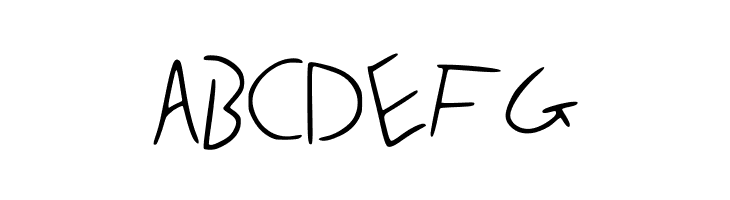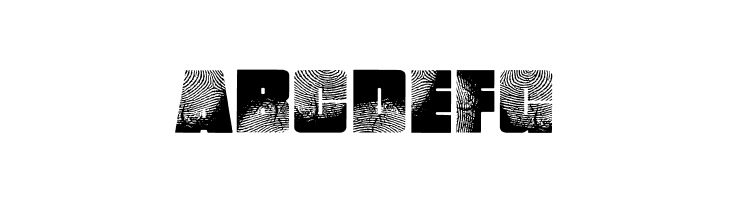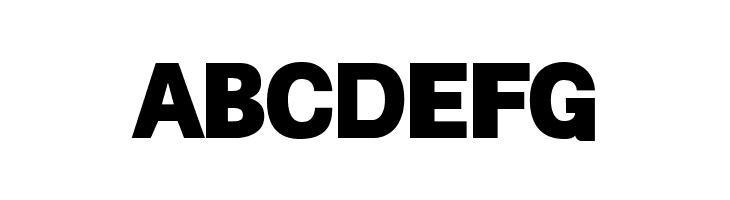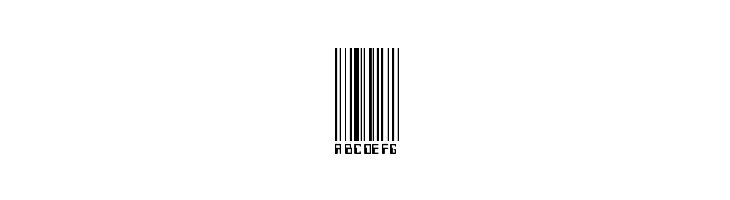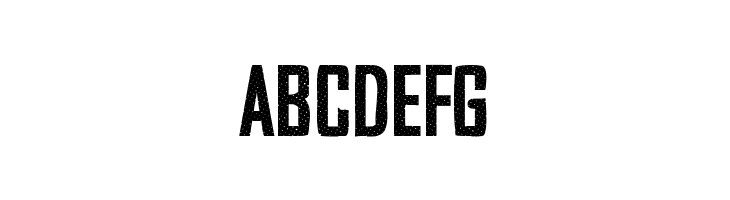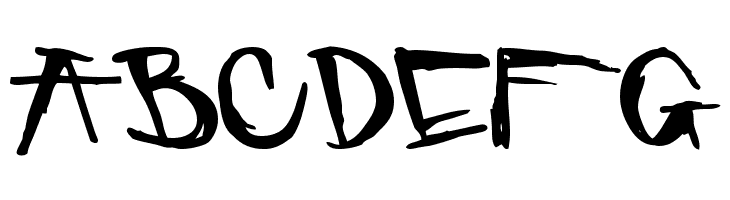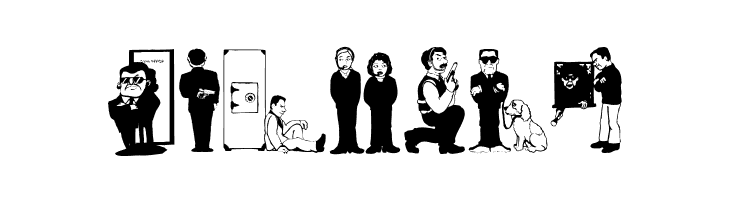
High-Security-Font Font
A bold, monospaced font designed for high-security applications with clear, distinct characters.
Shadows of Security Font
Font by LJ Design Studios
A bold, angular font with a distressed texture, perfect for impactful designs.
Maximum Security Font
Font by Jacob Fisher - www.pizzadude.dk
A futuristic, segmented line font with a digital, high-tech appearance.
criminal security Font
A bold, edgy font with sharp, angular strokes and a graffiti-like style.
SecurityPeople Font
Cartoon people form each character in a security-themed, illustrative display font.
Security Meltdown Regular Font
A playful, handwritten font with irregular strokes and a casual style.
Security Company Font
Font by Woodcutter
A bold, textured font with a gritty, industrial style.